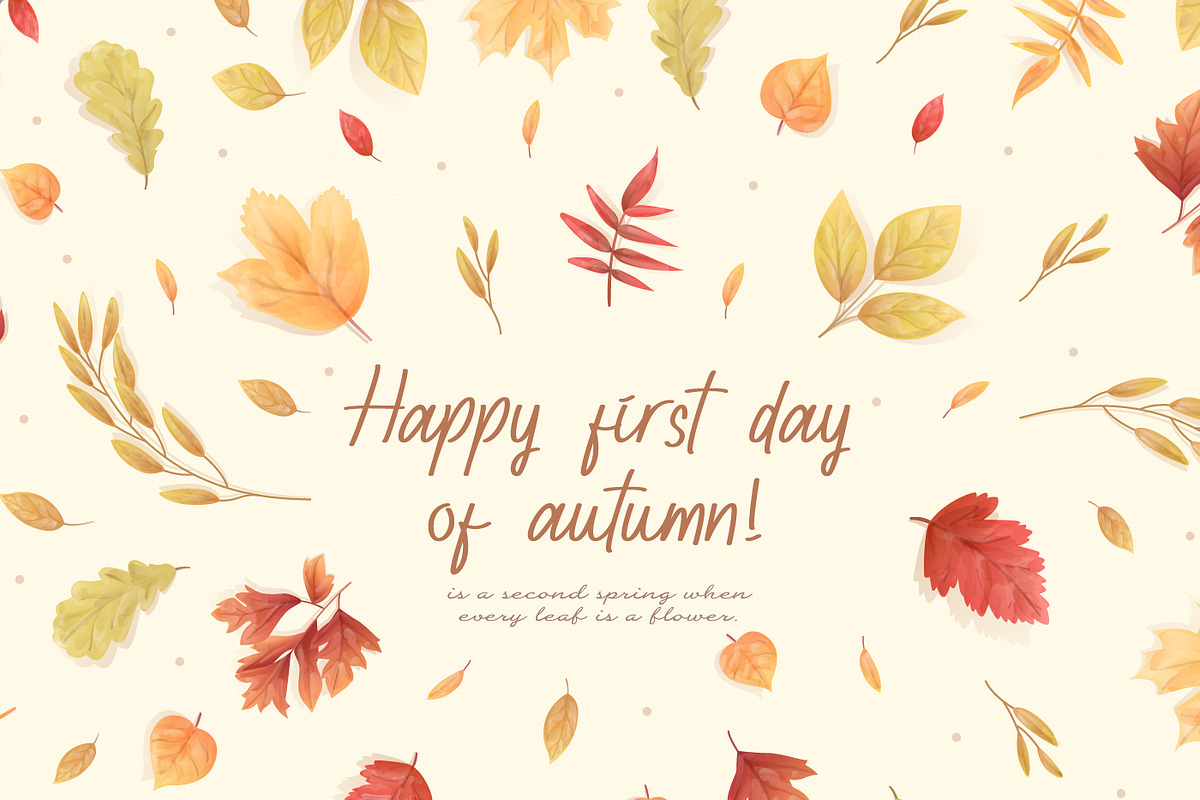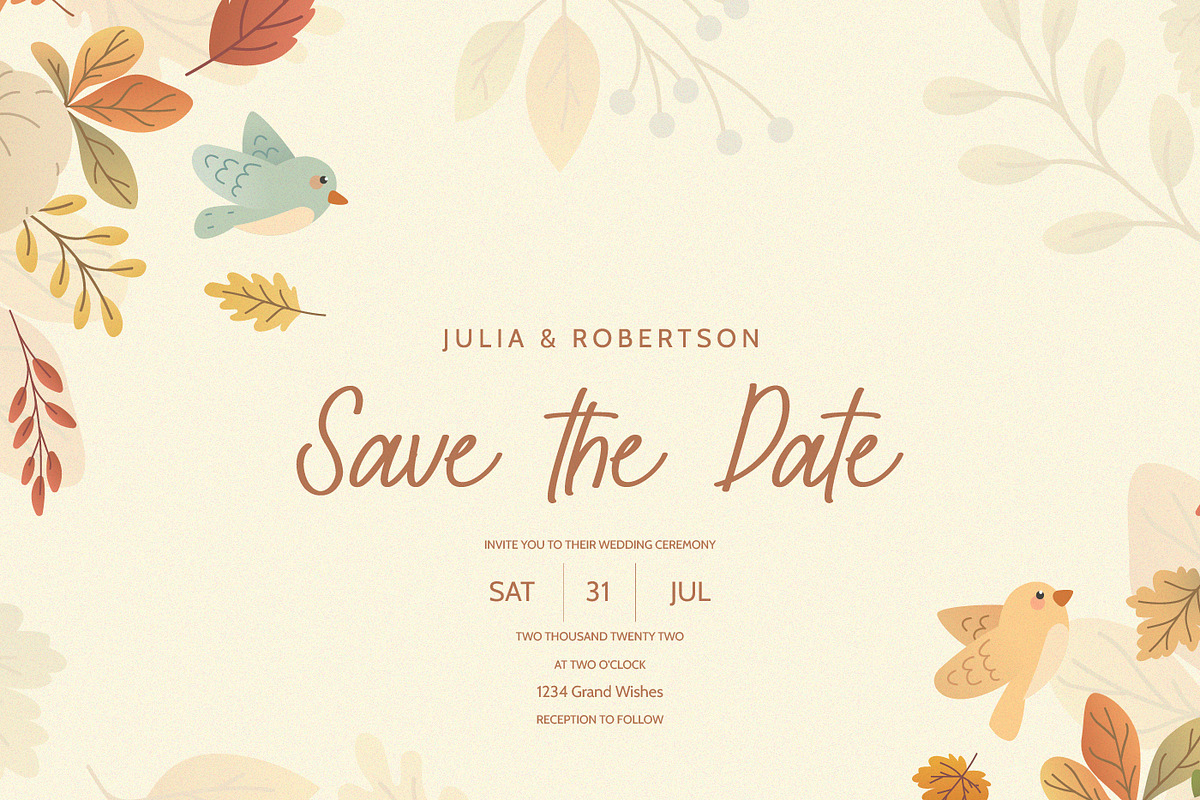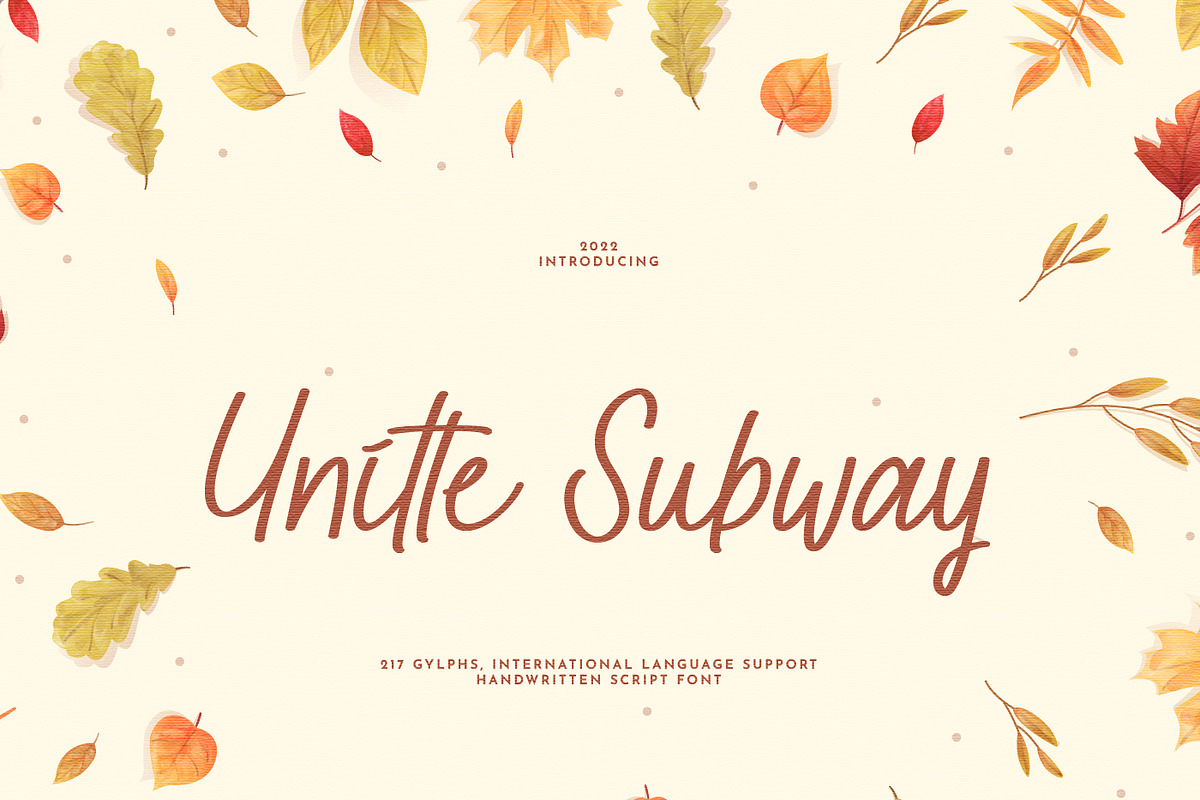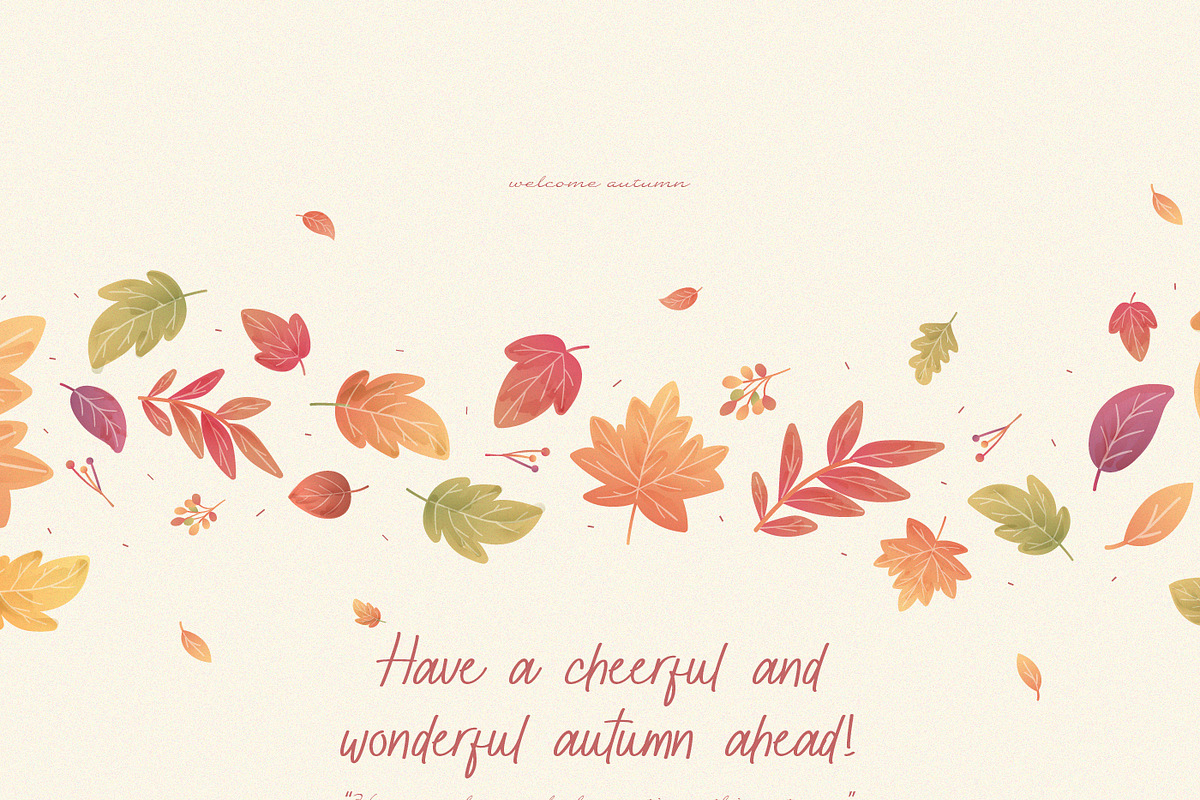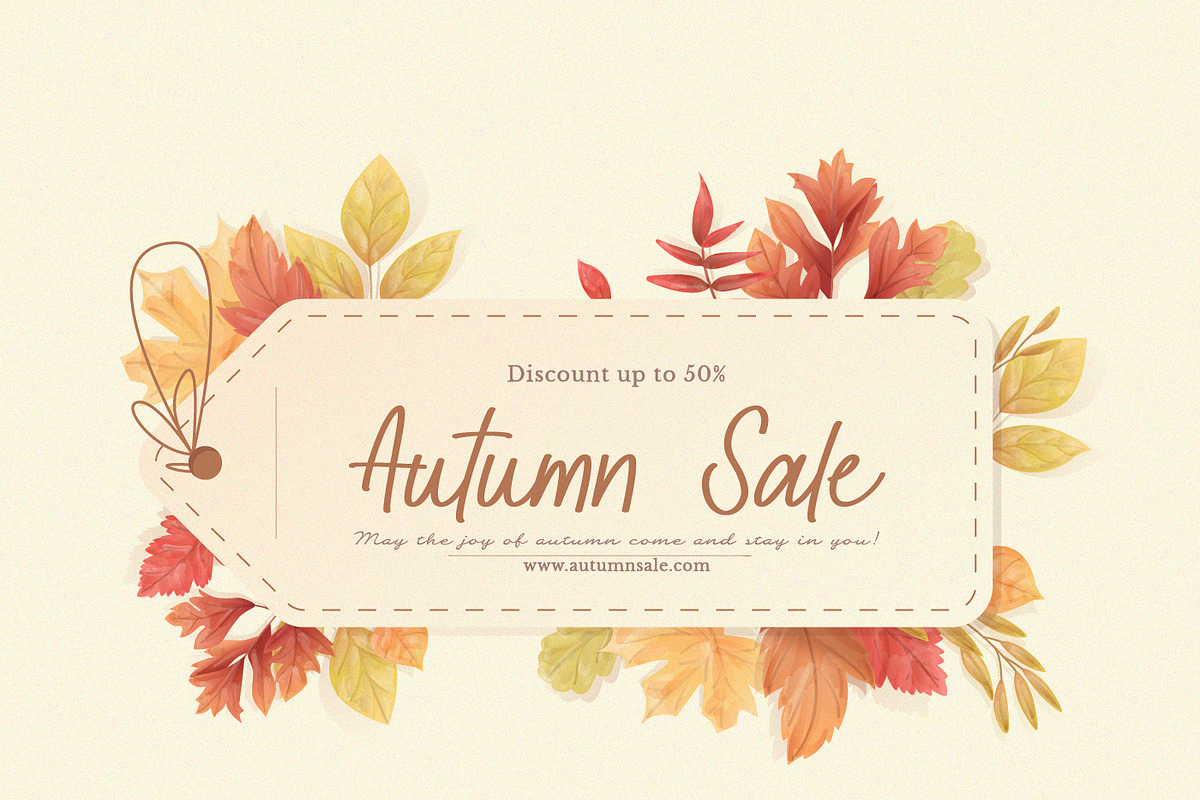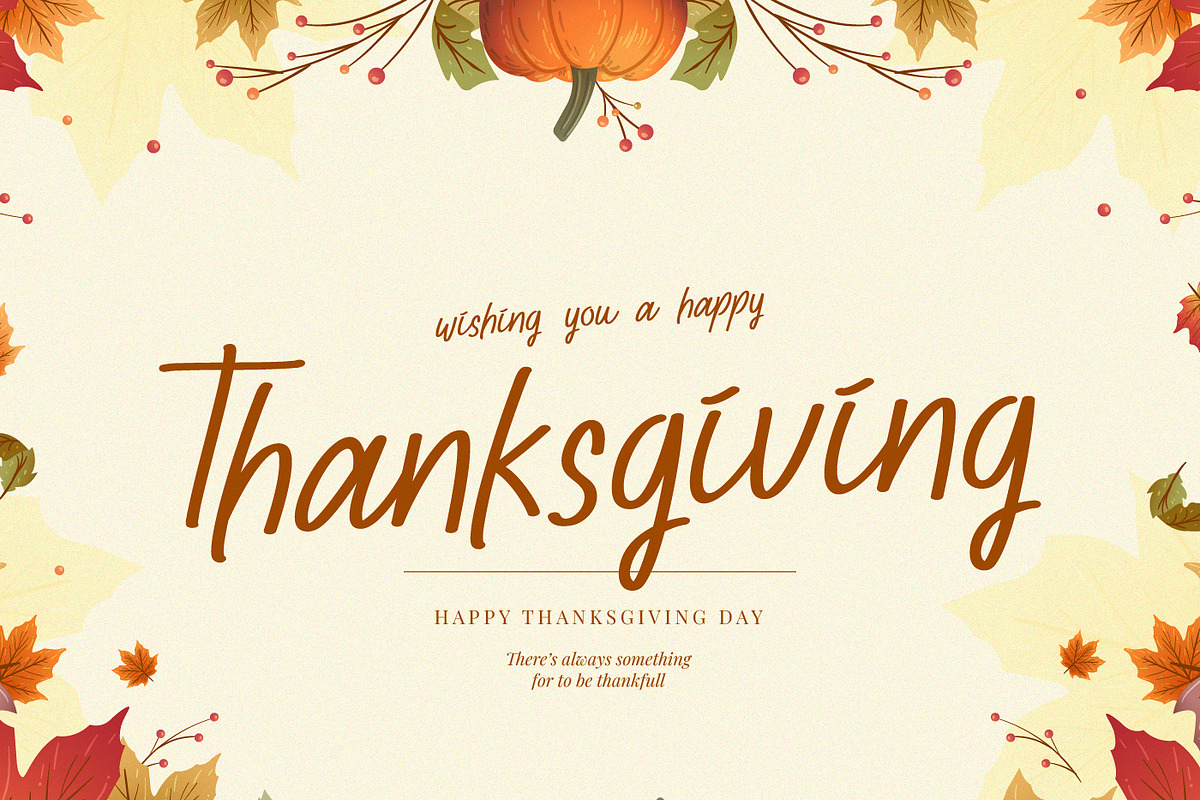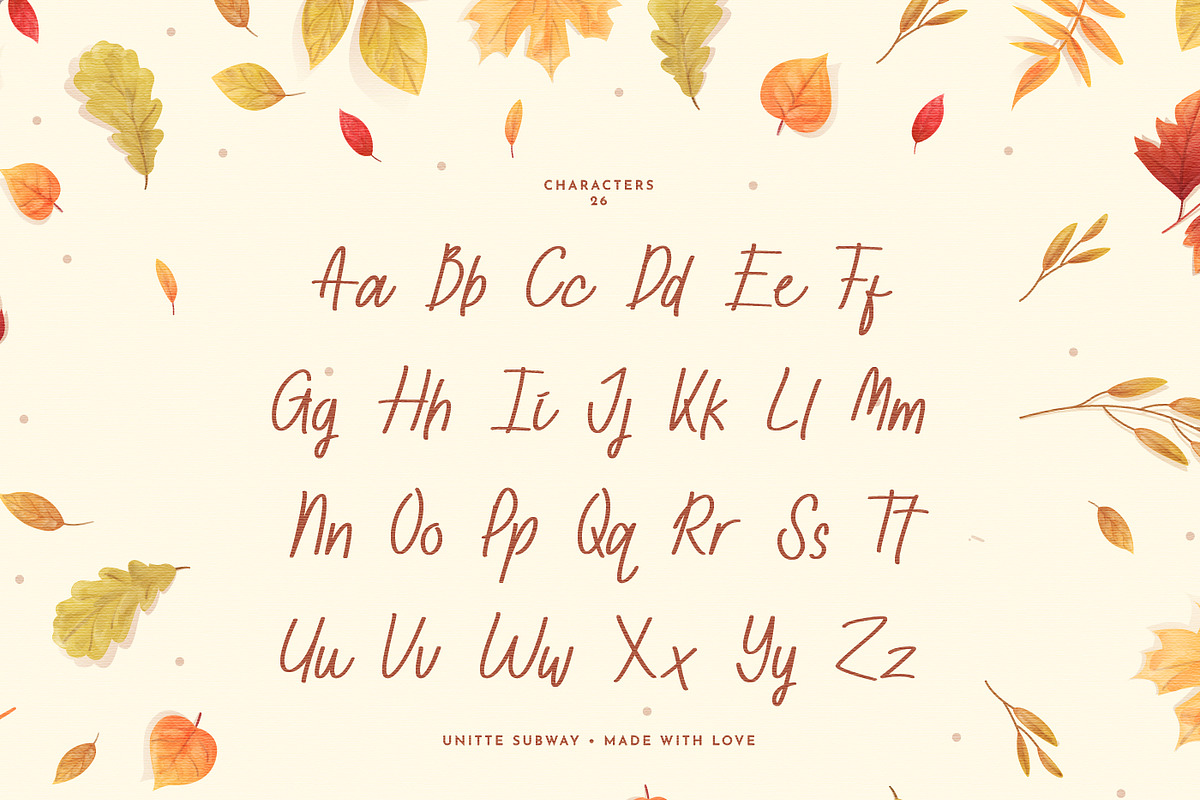
Unitte Subway Script Handwritten
Unitte Subway is one of Script Handwritten Font that fresh designed. Has thin and long-sharp body make "Unitte Subway" looks captivating and fabulous. "Unitte Subway" is perfect for lettering, invitation, wedding projects, logos, and more. Its appearance will make your design look delightful and eye-catching. Featuring with multilingual and ligature, "Unitte Subway" is suitable for any design.
- OpenType Features (Stylistic Set)